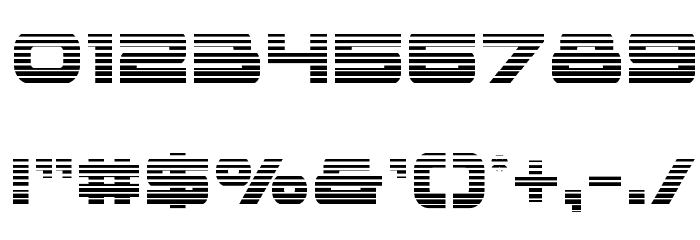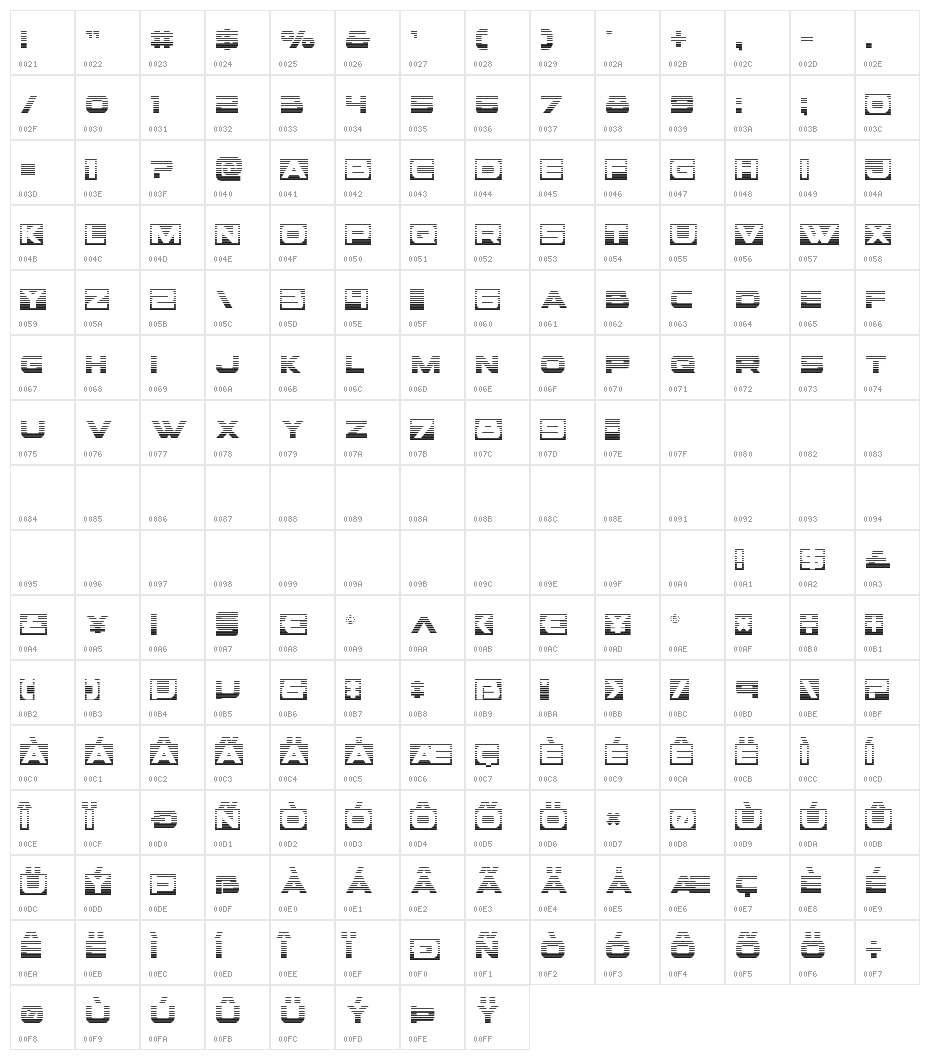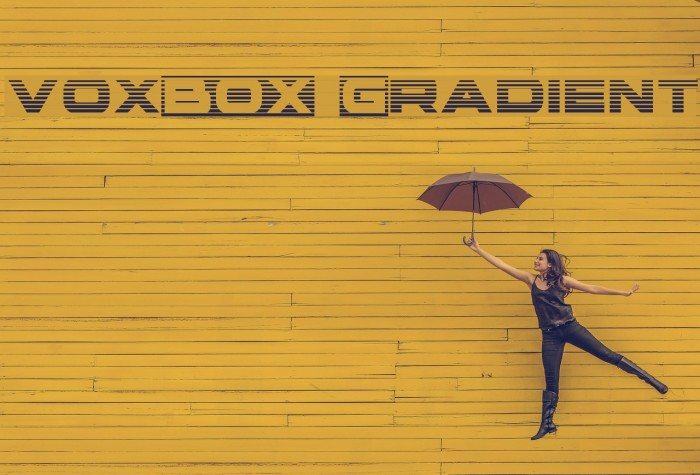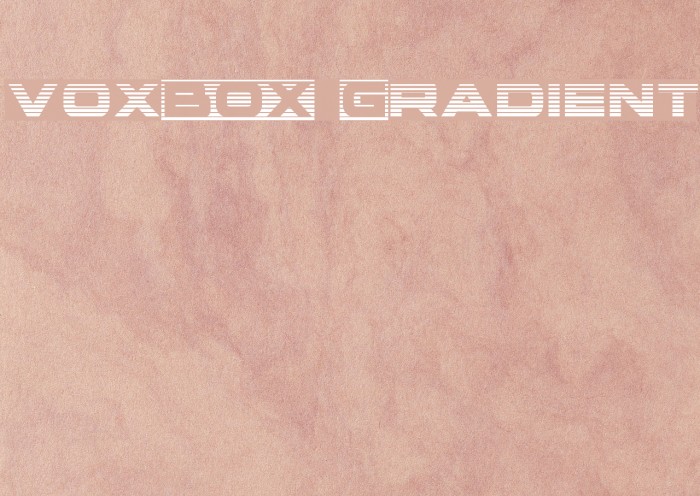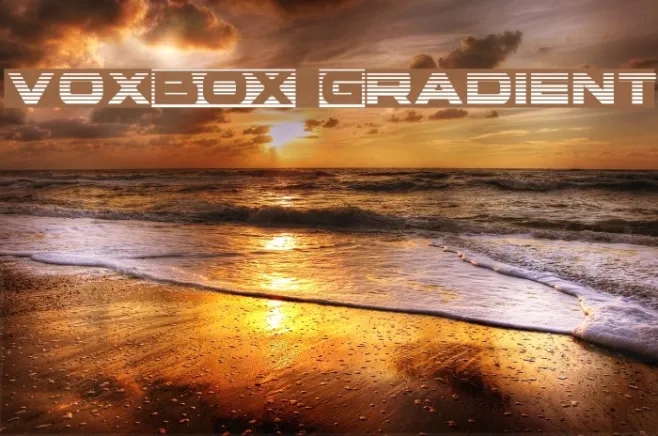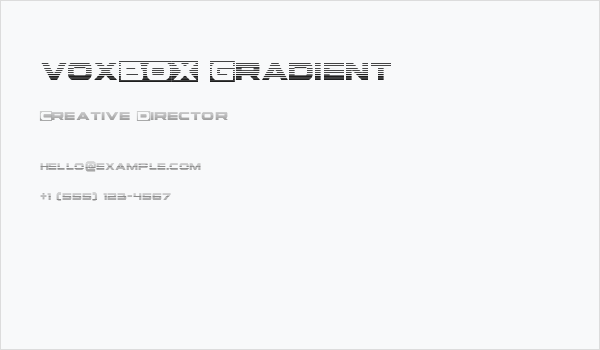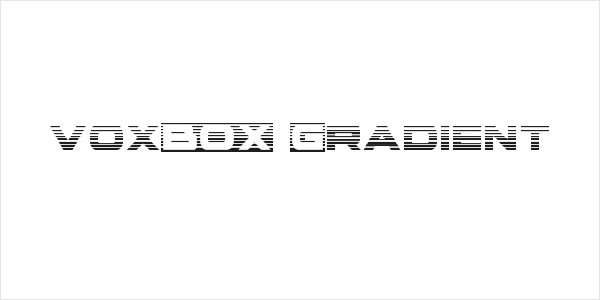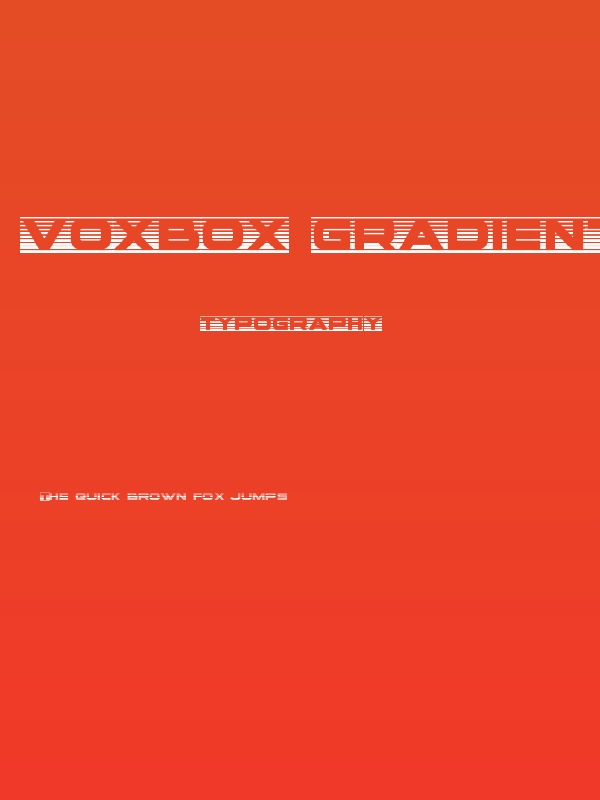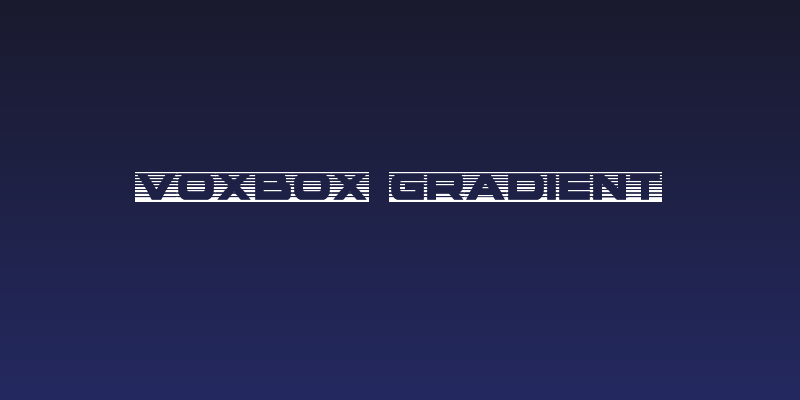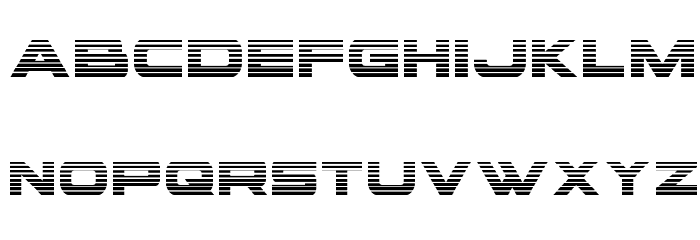
voxBOX Gradient Font
voxBOX Gradient Description
This font features a modern, futuristic design with a distinct horizontal line pattern running through each character, creating a gradient effect. The uppercase and lowercase letters maintain a consistent style, with sharp angles and clean lines that give it a sleek appearance. The numbers and special characters follow the same design principles, ensuring uniformity across all glyphs. The font's unique style makes it stand out, suitable for projects that require a bold and innovative look.
Proposed ProjectsIdeal for tech-related branding, futuristic posters, video game titles, and digital media projects.